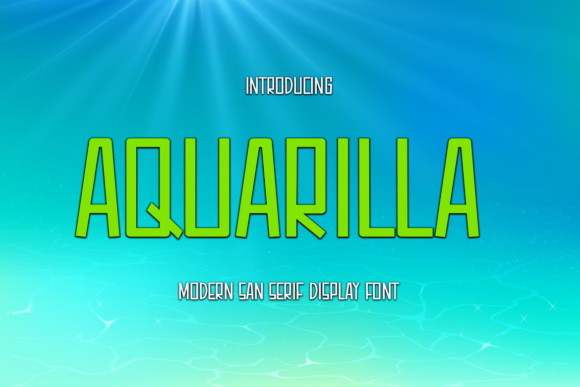
The Quest for the Perfect Font: How Aquarilla Stole My Heart
I still remember the design project that led me to discover Aquarilla Font. I was working on a branding project for a crafty client, and I was struggling to find the perfect font that would capture the essence of her handmade products. I had tried countless fonts, but none of them seemed to fit the bill. That was when I stumbled upon Aquarilla, and it was love at first sight! 💕
Aquarilla is a sweet and friendly sans serif font that has a natural and clean style, making it incredibly fitting for a large pool of designs. Its original look appeals to a wide range of crafty ideas, from letterheads and titles to stationery. In this article, I’ll share my honest review of Aquarilla, provide a practical guide on how to use it, and explore similar fonts and alternatives.
My Honest Review of Aquarilla Font
What I Love About Aquarilla ✨
- ✅ Clean and modern design: Aquarilla’s sleek lines and curves make it perfect for modern designs.
- ✅ Friendly and approachable feel: This font has a warm and inviting personality that makes it perfect for crafty and handmade projects.
- ✅ Highly versatile: Aquarilla works well for a wide range of designs, from titles and headings to body text and captions.
- ✅ Easy to read: The font’s clean design and generous spacing make it easy to read, even at small sizes.
- ⚠️ Limited number of glyphs: Aquarilla has a limited number of glyphs, which may not be sufficient for projects that require a wide range of special characters.
- ⚠️ Not suitable for body text: While Aquarilla is easy to read, it’s not the best choice for long blocks of body text due to its clean and modern design.
The Backstory of Aquarilla Font
Aquarilla was designed by a team of creative typographers who wanted to create a font that would capture the essence of handmade and crafty designs. The font was inspired by the natural world and the beauty of hand-drawn lettering. The designers aimed to create a font that would be both clean and modern, yet friendly and approachable.
Q: What is Aquarilla Font?
A: Aquarilla Font is a sweet and friendly sans serif font with a natural and clean style.
Q: What is Aquarilla Font used for?
A: Aquarilla Font is perfect for a wide range of designs, from titles and headings to body text and captions, especially for crafty and handmade projects.